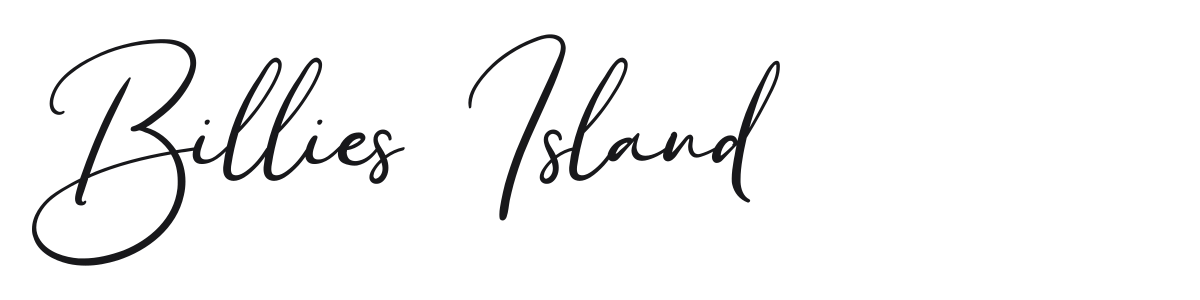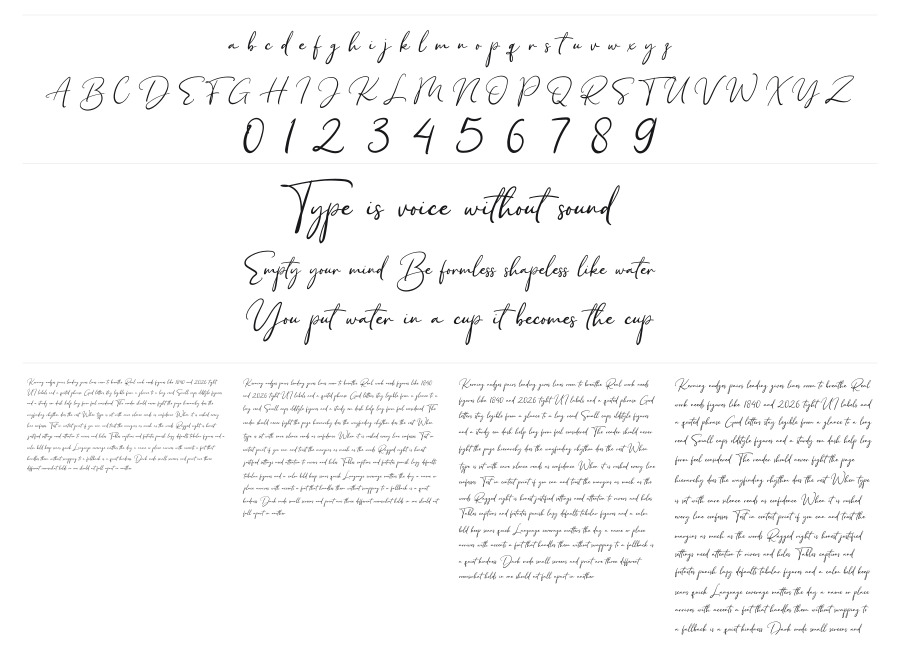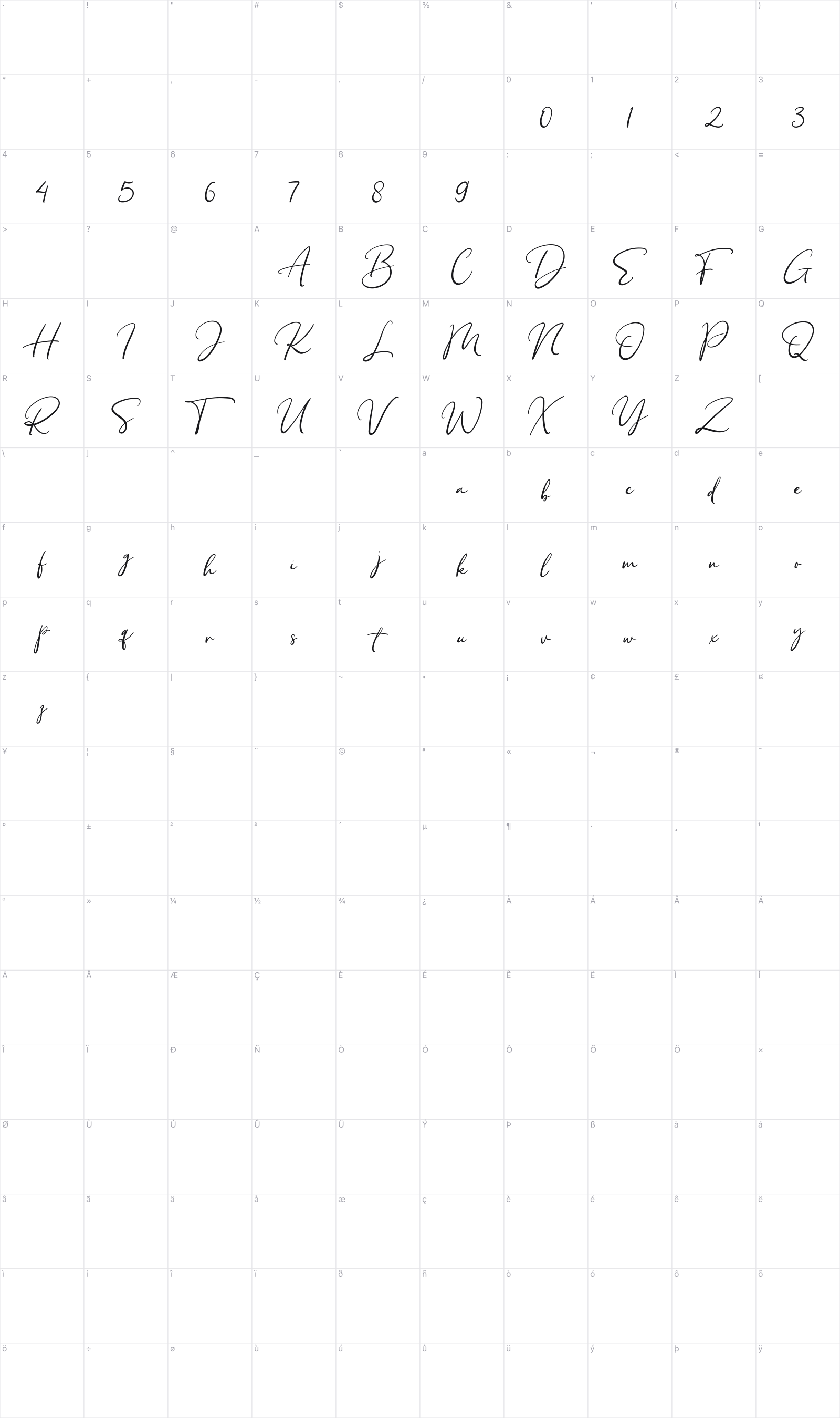
Billies Island
Billies Island is a casual connected script with the easy, unhurried feel of someone writing in the sun. Loose ascenders and sweeping strokes give it a breezy, organic quality that fits naturally in lifestyle branding, packaging, and editorial headlines. The lightness of the weight keeps it airy rather than heavy.